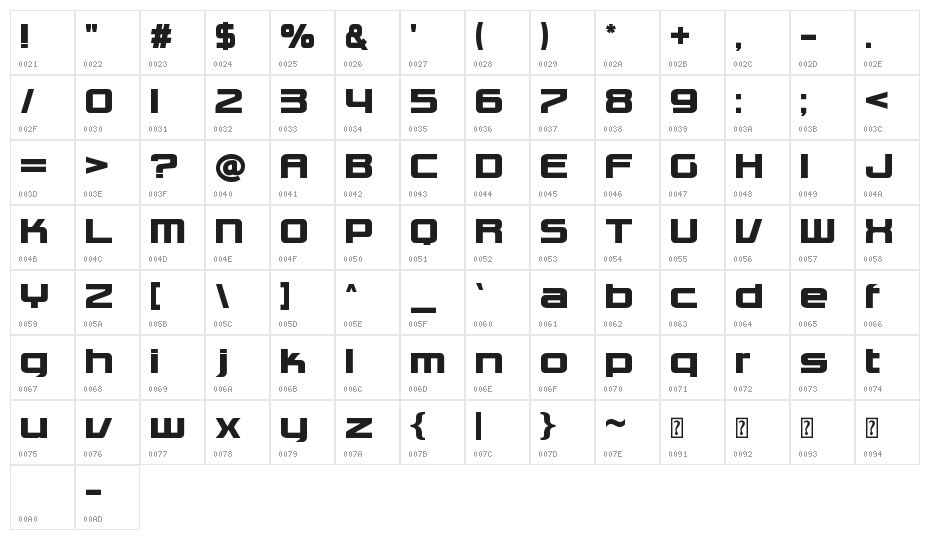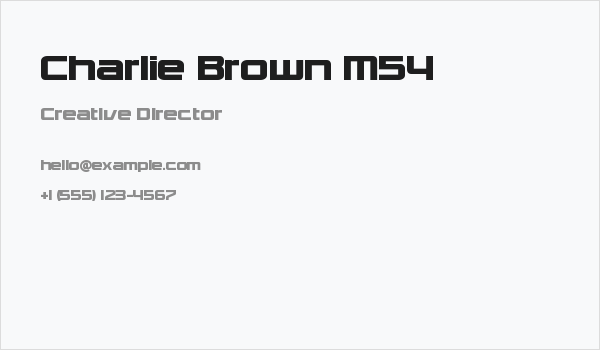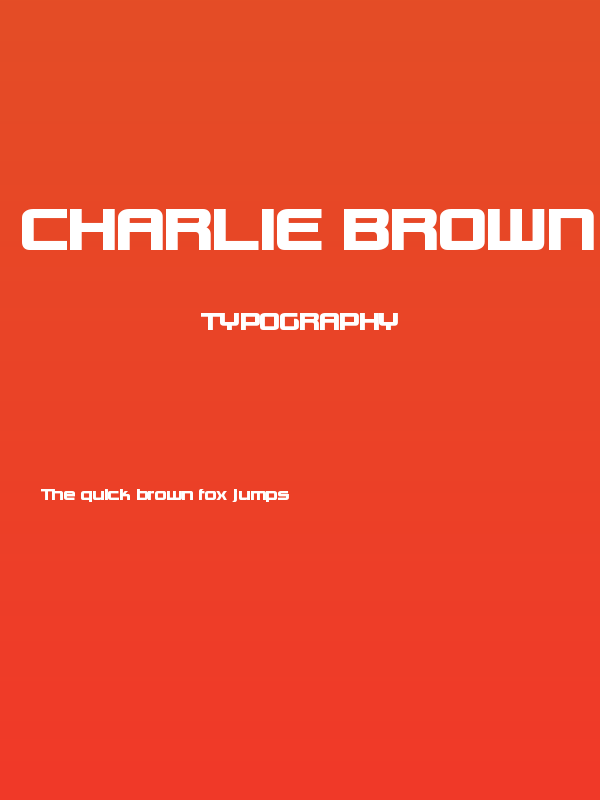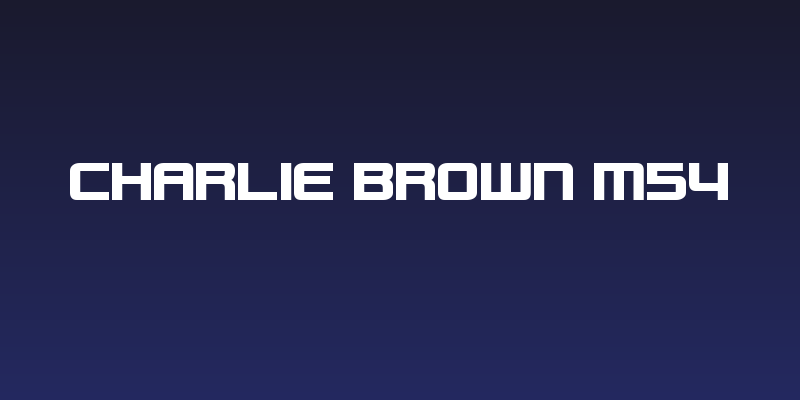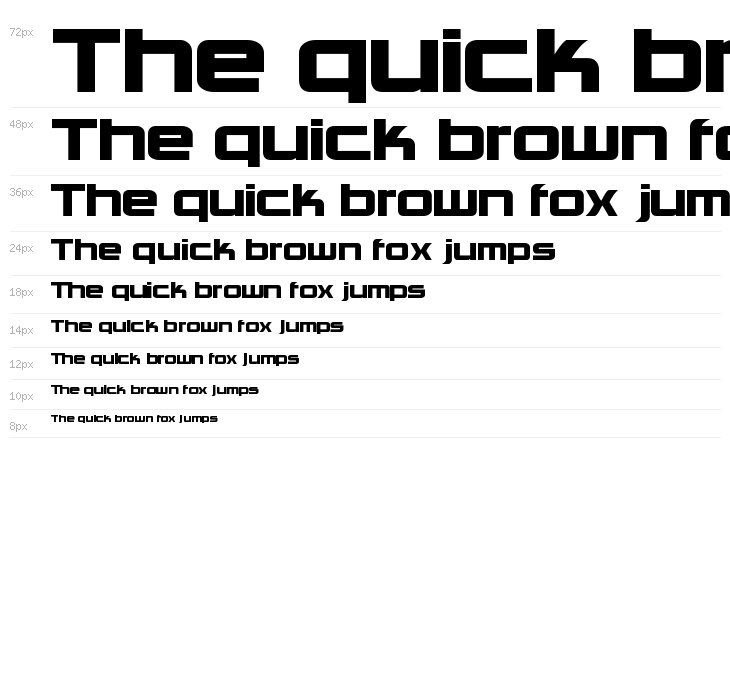
Charlie Brown M54 Font
Charlie Brown M54 Description
This font features a bold, geometric design with a modern and futuristic appeal. The characters are constructed with straight lines and sharp angles, giving them a strong and assertive presence. The uppercase letters are uniform in height, while the lowercase letters maintain a consistent x-height, contributing to a cohesive look. The numerals are equally bold and align well with the overall style, ensuring readability and impact. Special characters are designed to match the boldness and geometric nature of the alphabet, making them suitable for various applications. The font's strong visual impact makes it ideal for attention-grabbing designs.
| Proposed Projects | Ideal for branding, headlines, posters, and digital media where a strong visual impact is desired. |